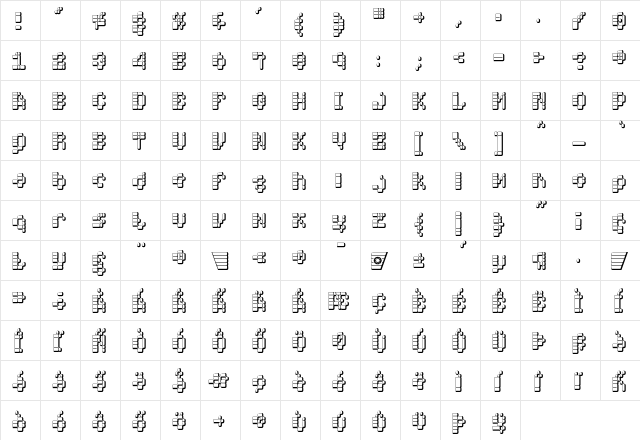
HypercellDNA Regular
Design Context for HypercellDNA Typeface
HypercellDNA is a composed and adaptable typeface that performs quietly and consistently across a wide range of design contexts.